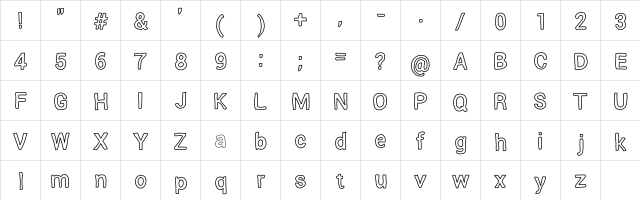
Verumai Outline
Design Context for Verumai Typeface
Verumai brings ornamental detail and strong personality to headlines and identities, where visual impact matters more than quiet functionality.
Font Pairing: Pair with a clean neutral sans-serif for body copy to let Verumai's character lead without overwhelming the composition.
Pro Tip: Use Verumai exclusively at display sizes — it was designed to be seen, not read at length. Let a neutral companion handle body copy.